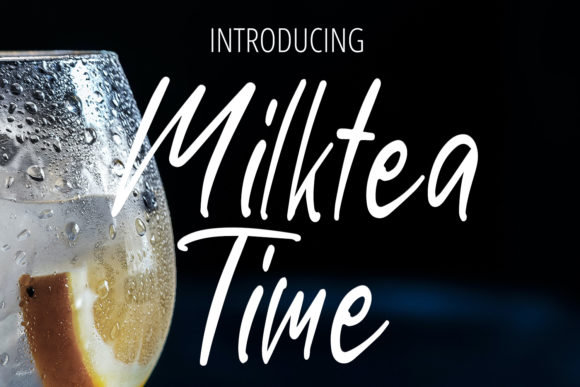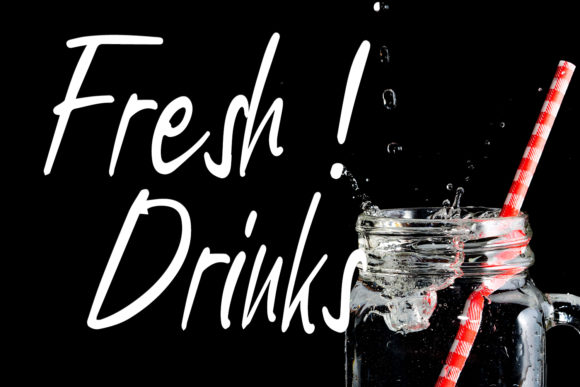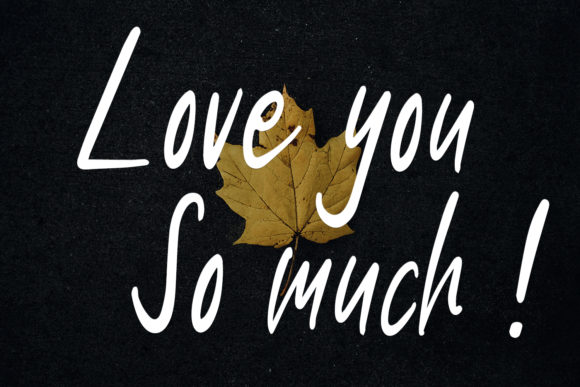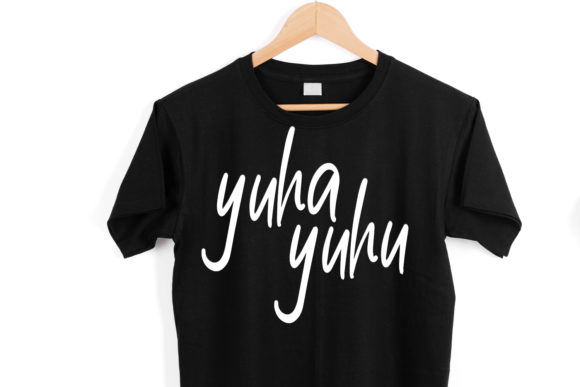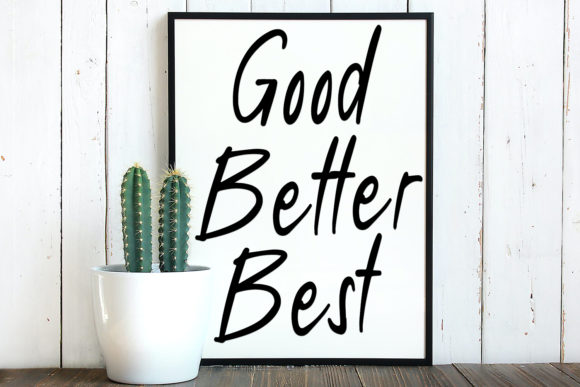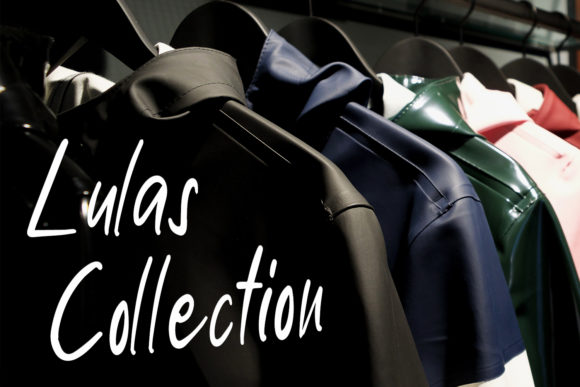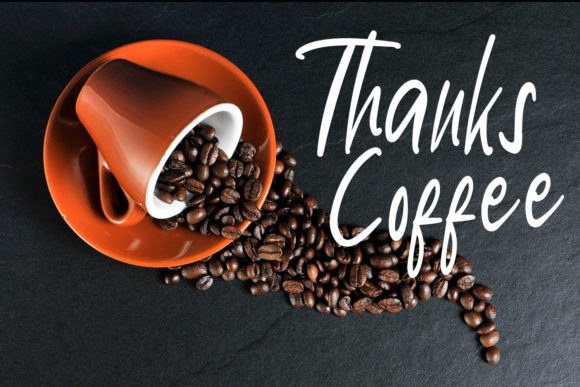
Milktea Time Font
About Milktea Time Font
Milktea Time is a fresh and natural handwritten font. Whether you’re looking for fonts for Instagram or calligraphy scripts for DIY projects, this font will turn any creative idea into a true piece of art!